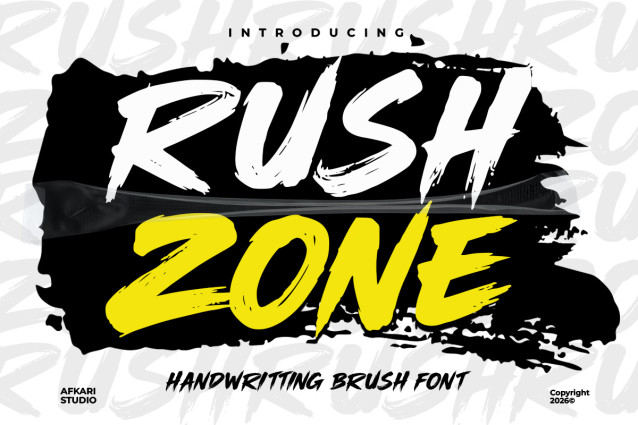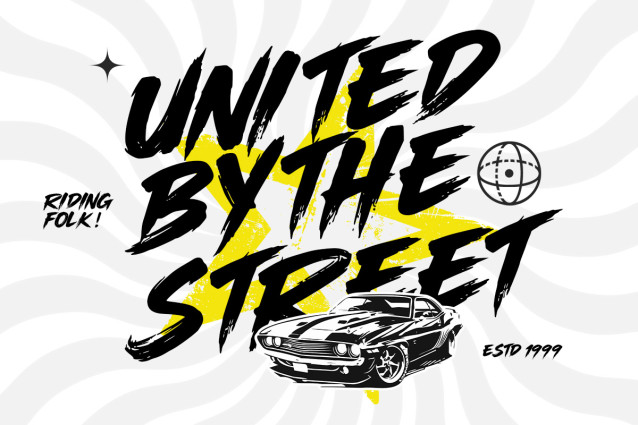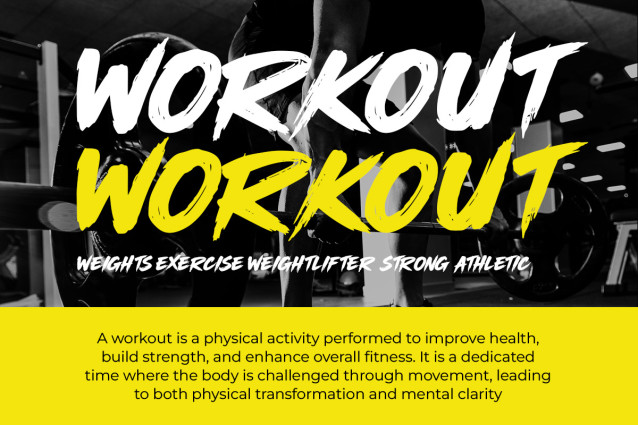
Rush Zone – Handwritting Brush Font
Rush Zone is a bold handwriting brush font crafted to deliver energetic, expressive, and natural typography for modern creative projects. Inspired by fast brush strokes and spontaneous handwriting movement, this font captures a strong handcrafted character that instantly attracts attention.